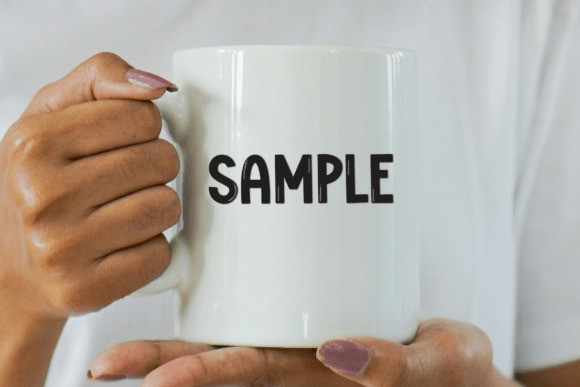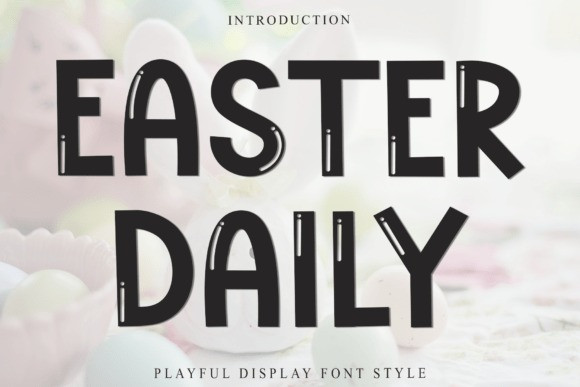
Easter Daily Font
Easter Daily Font – Fun, friendly, and full of bounce — this bubbly font brings a cheerful personality to any design. With its rounded shapes and soft curves, it radiates positivity and playfulness, making it perfect for kids’ projects, social media graphics, party invitations, branding, and anything that needs a pop of joy. This font is all about good vibes and great design!